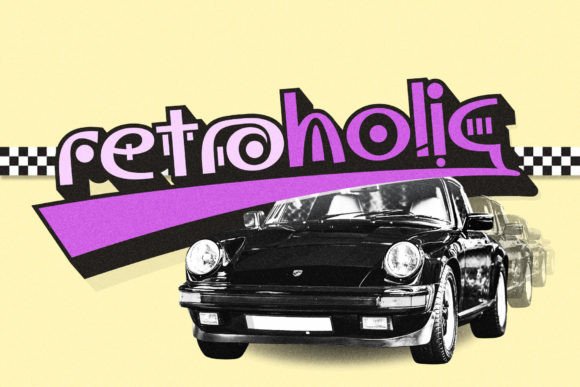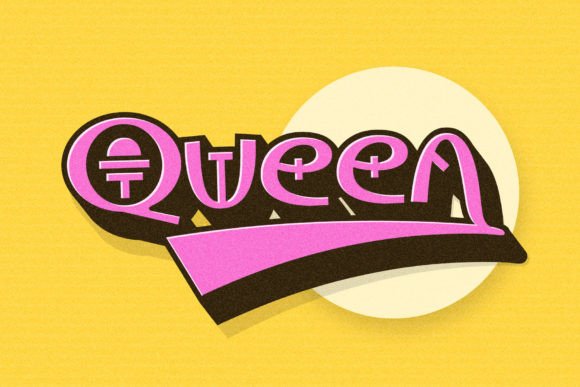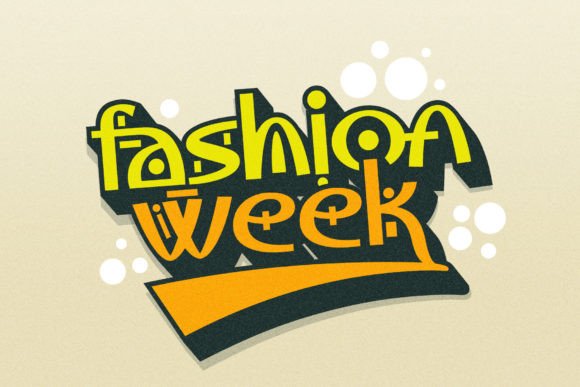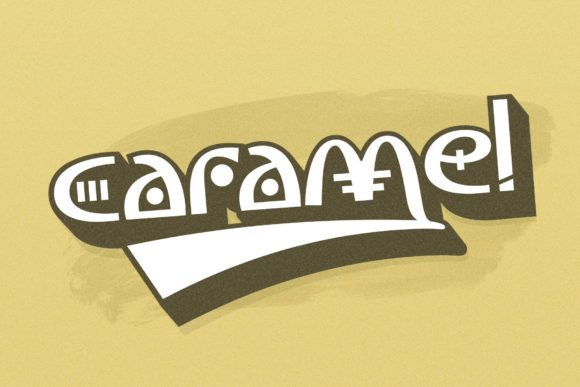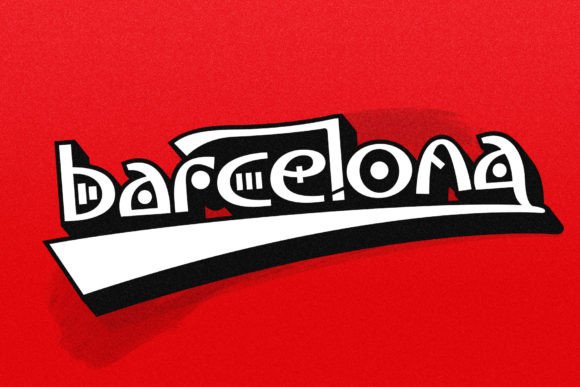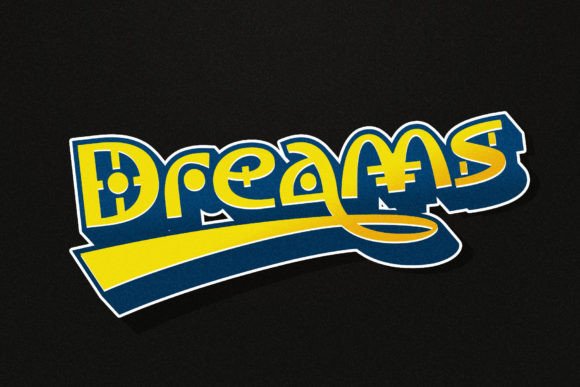
Introduction to Mershella Font
Mershella is a modern and friendly display font, completely unique.
Its original letterforms will be a wonderful asset when you need to create designs that need to stand out from the crowd .